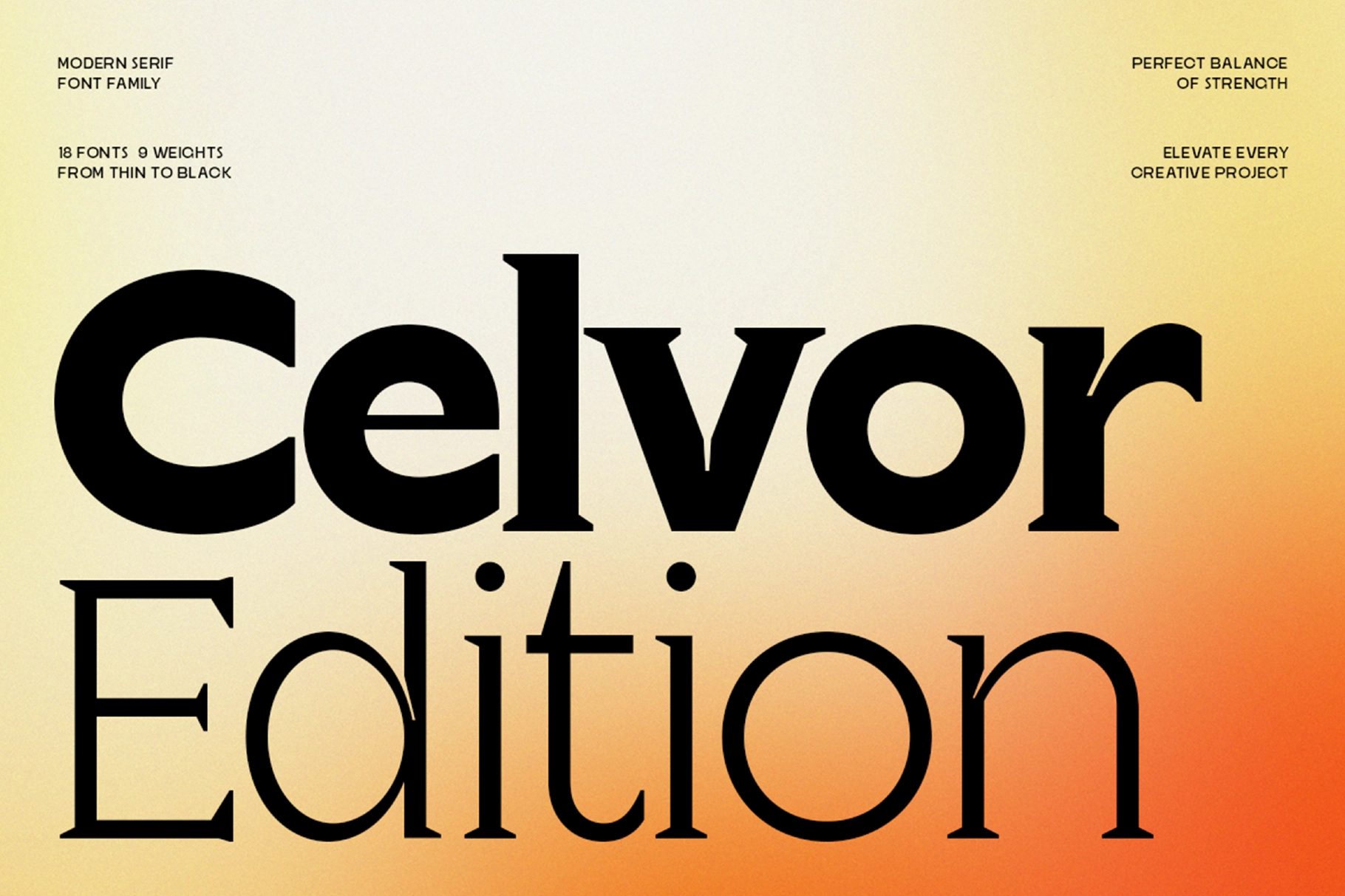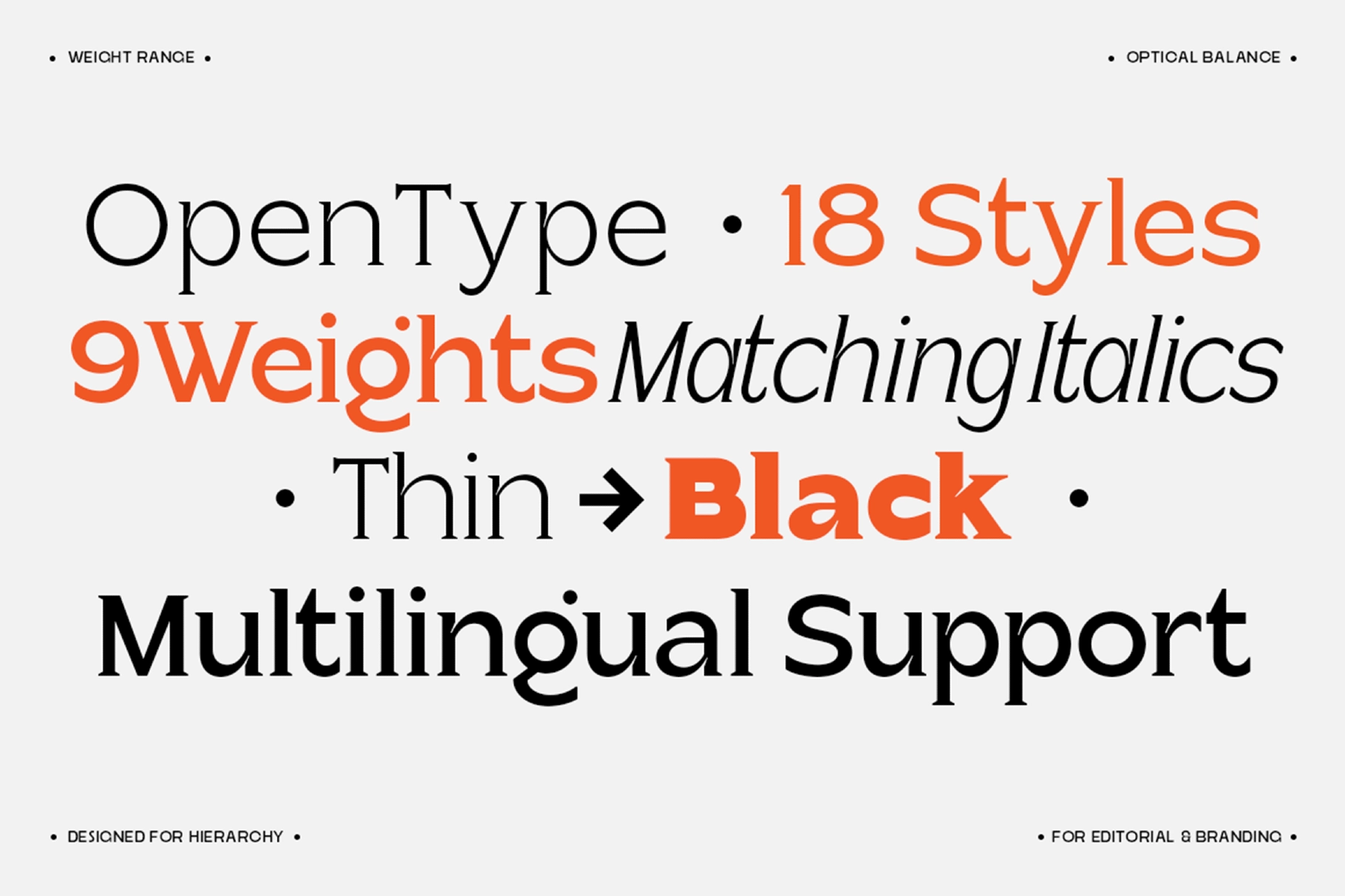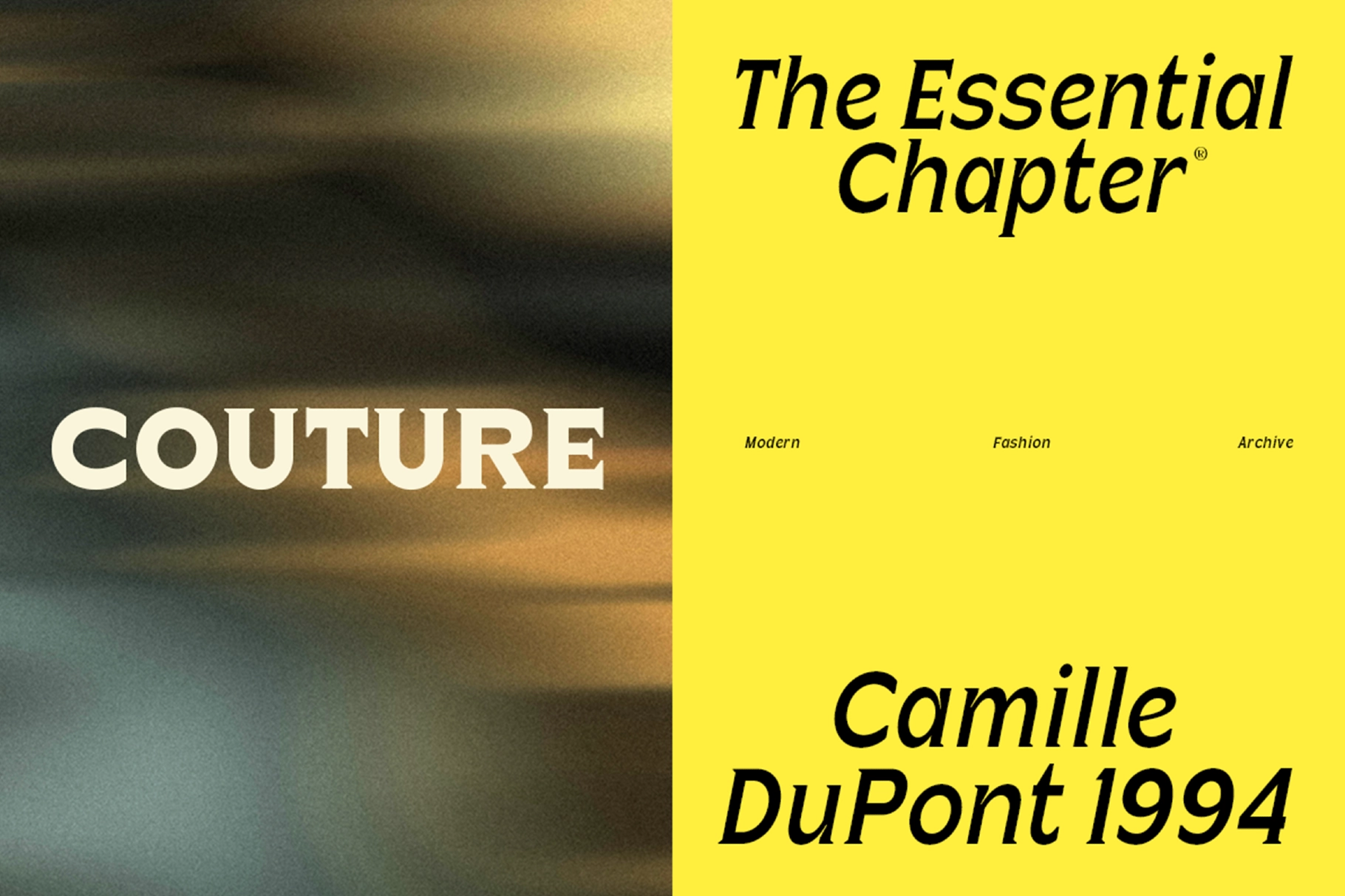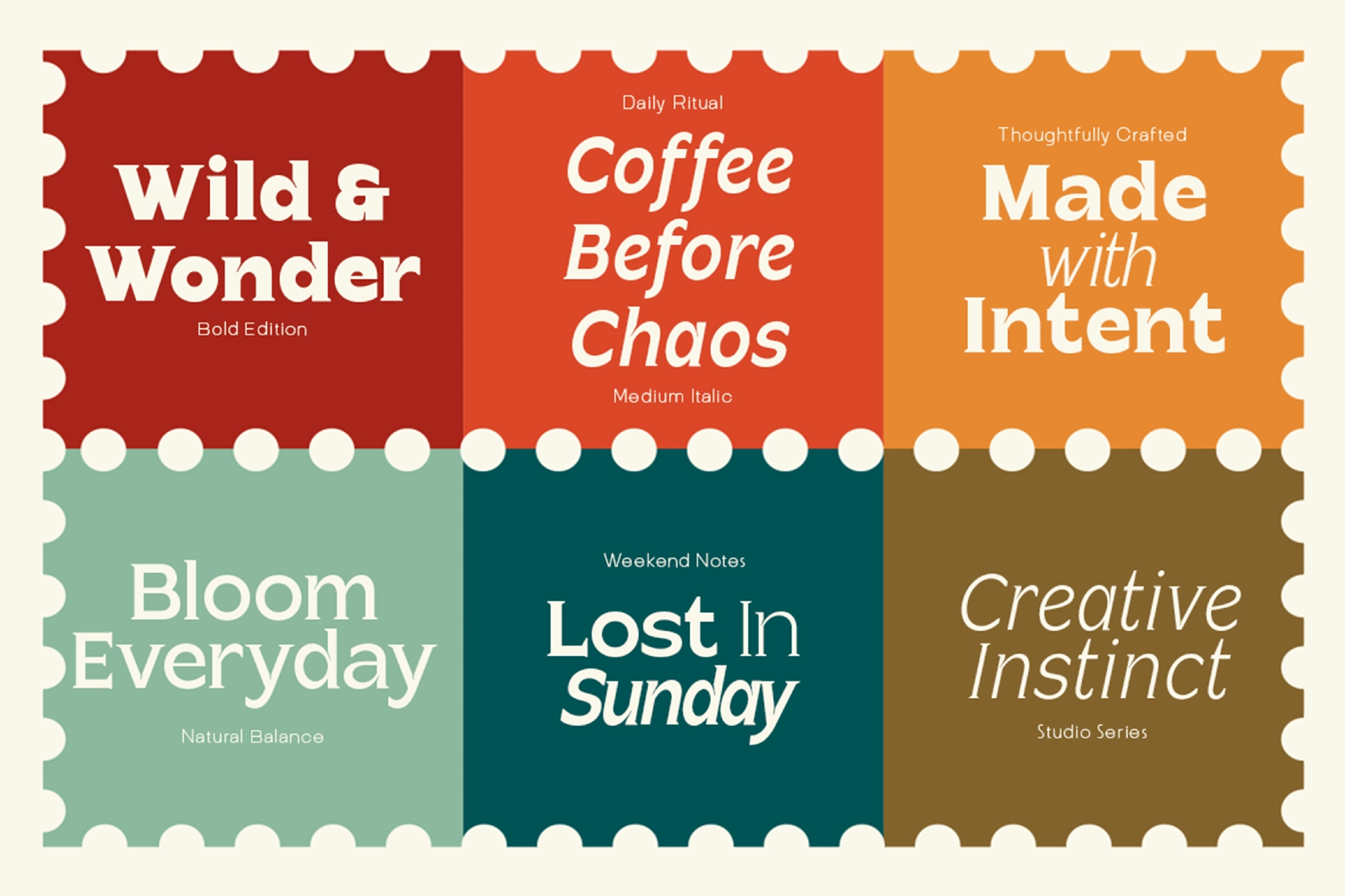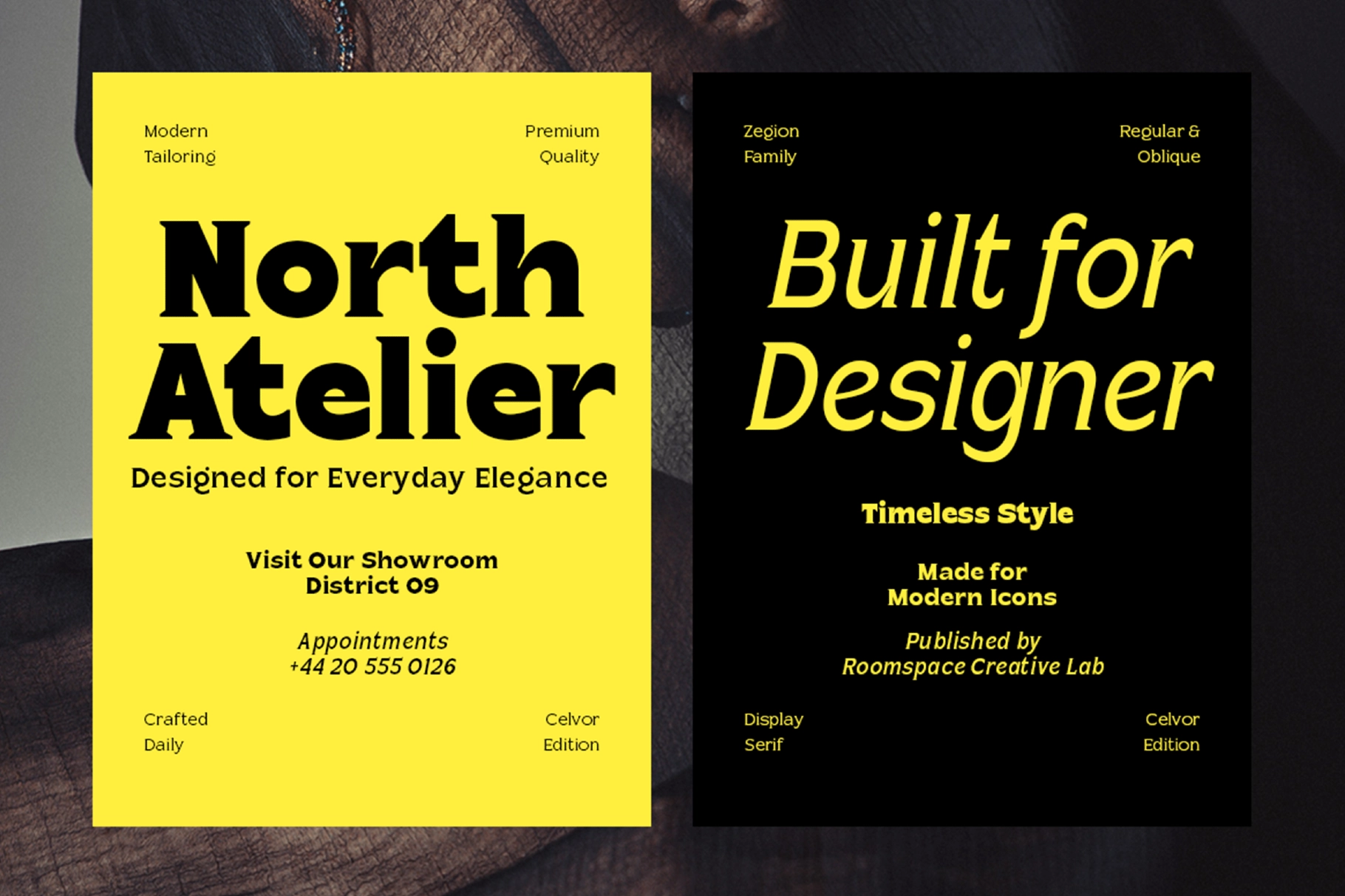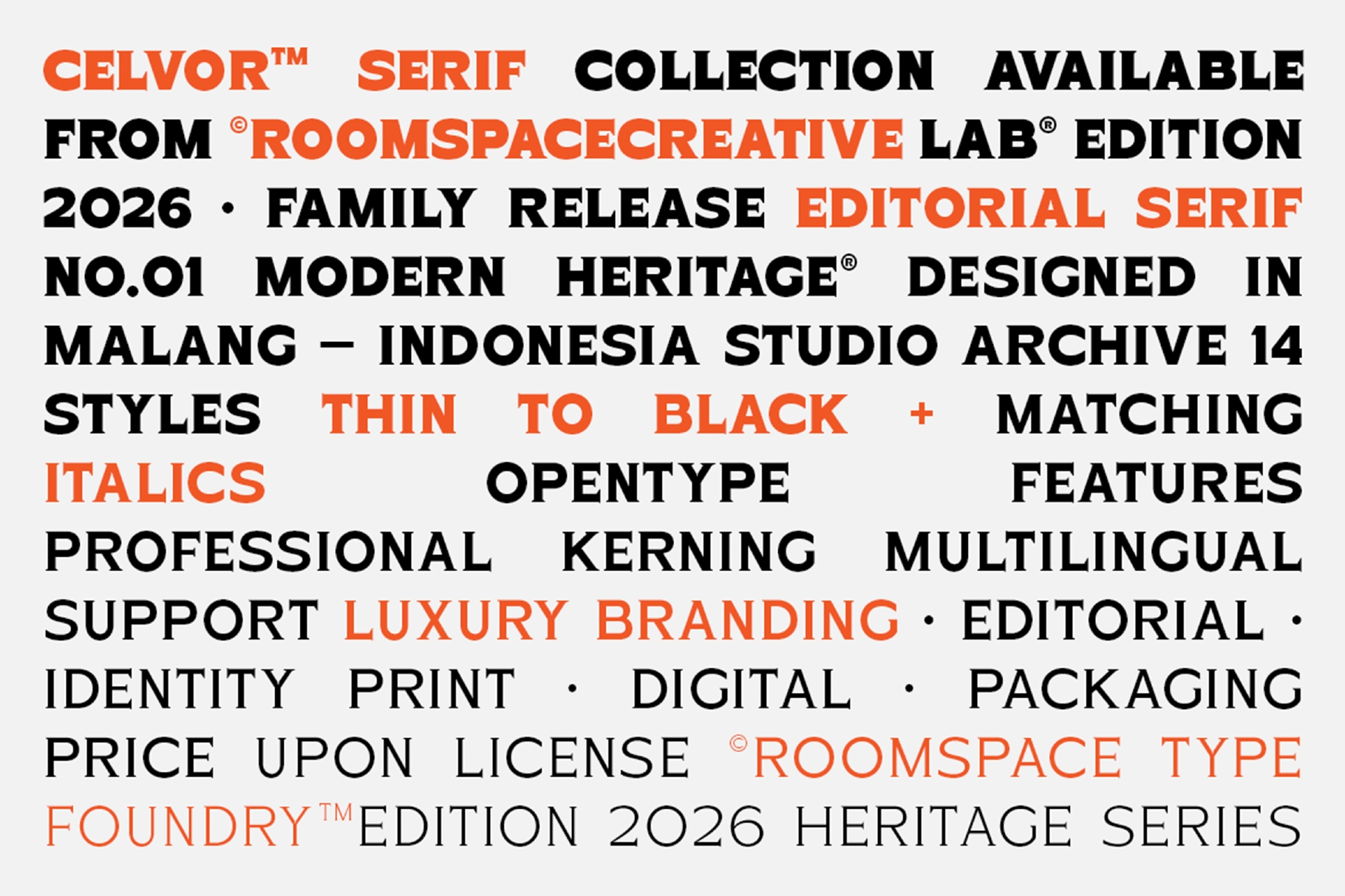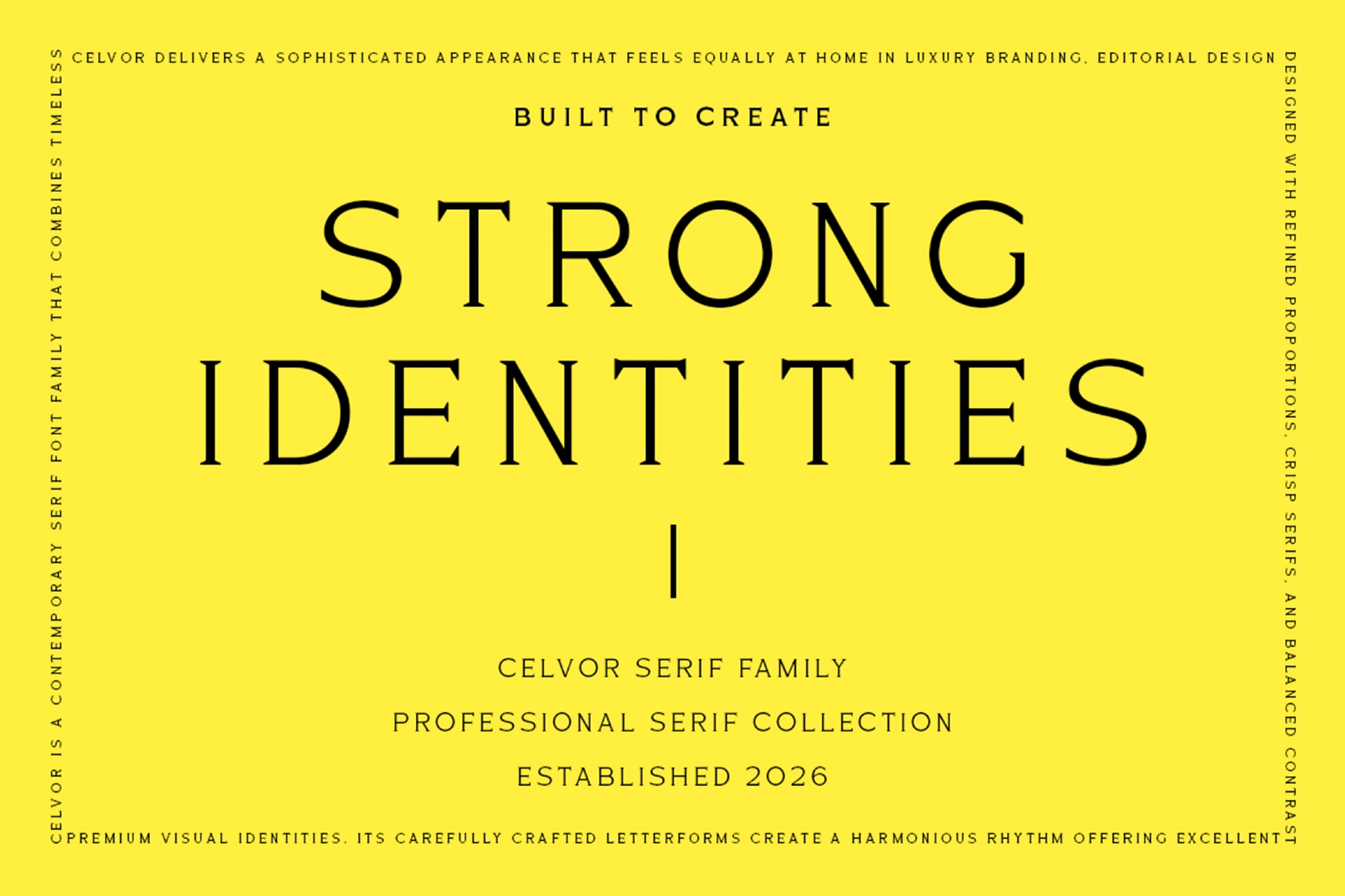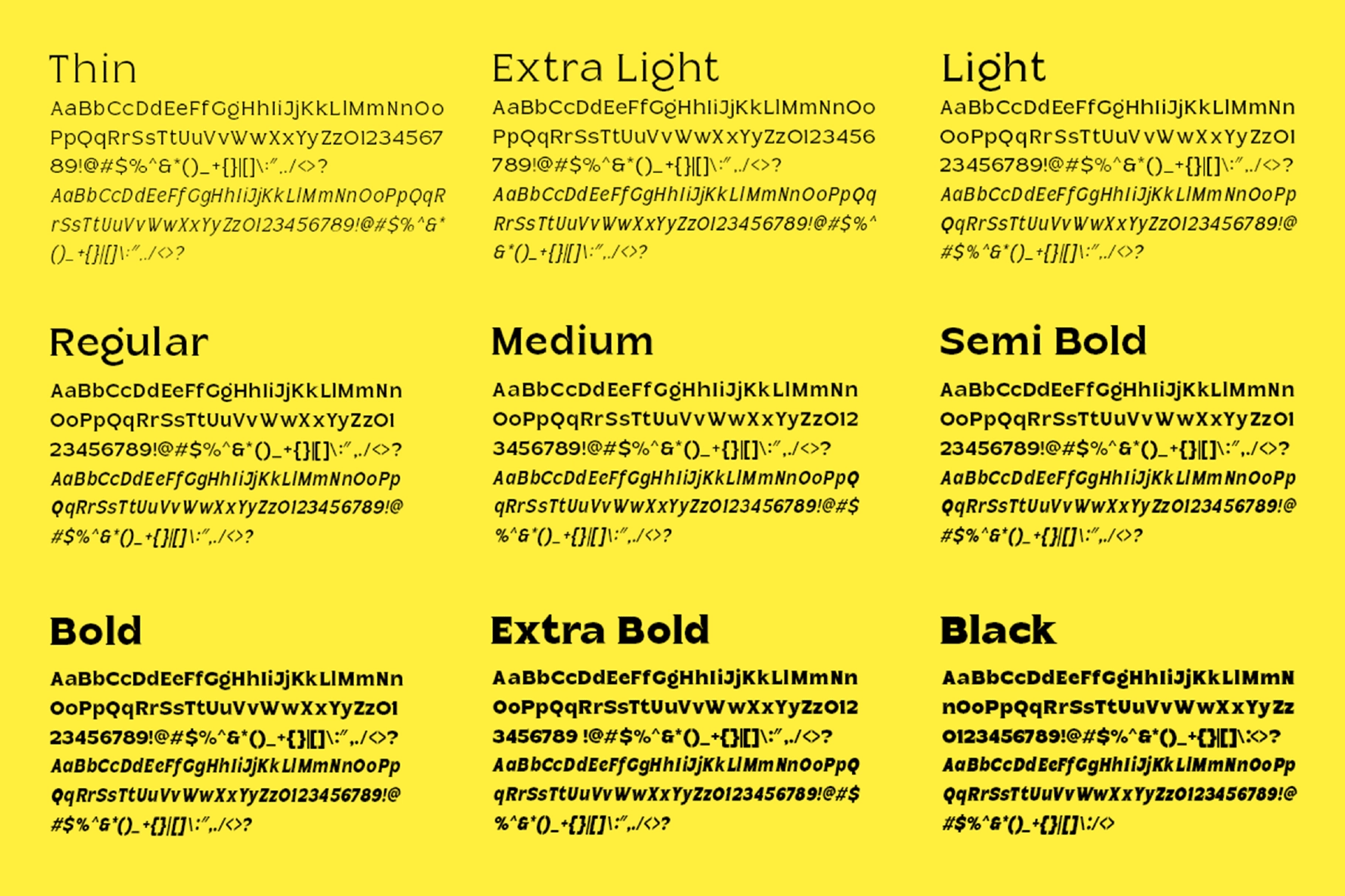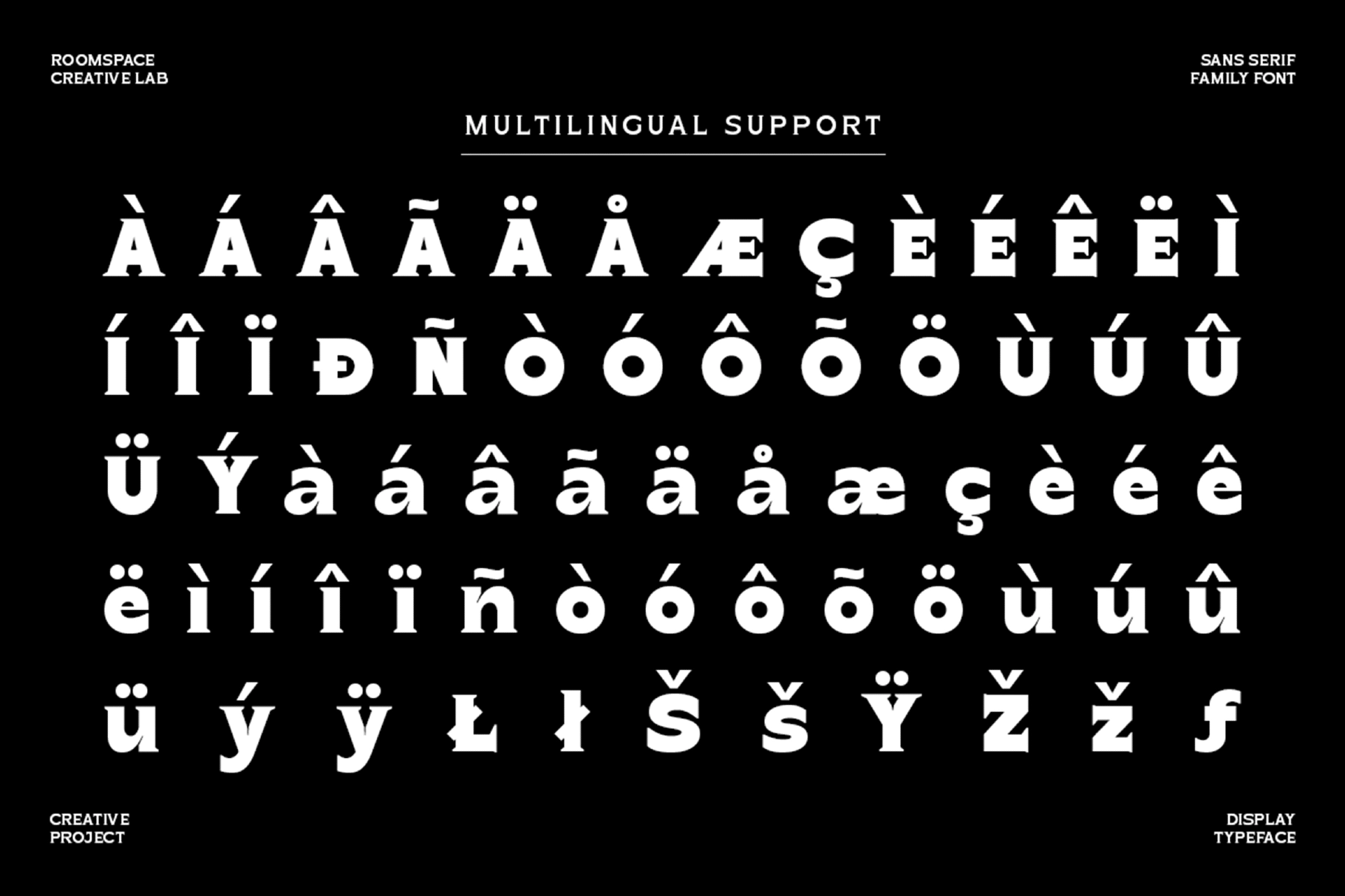
Celvor Edition – Contemporary Serif Font Family
Celvor Edition is a contemporary serif font family built for editorial weight and brand precision, with flat, understated serifs, open apertures, and a steady rhythm that holds up from a single caption line to a full magazine spread. The italics run as true cursives rather than slanted romans, giving headlines a second voice without breaking the family's proportions.
Across nine weights, from Thin to Black, the family moves from quiet, ligature-light body copy to a heavy, poster-ready black without losing its serif identity. Use it for magazine spreads and pull quotes, luxury boutique and hotel branding, cosmetics and spirits packaging, book covers, architecture studio identities, brand websites, restaurant menus, and event posters, and more.
- 18 styles: 9 weights (Thin to Black) with matching italics;
- Uppercase & lowercase;
- Numerals, punctuation & symbols;
- OpenType features: stylistic alternates and ligatures;